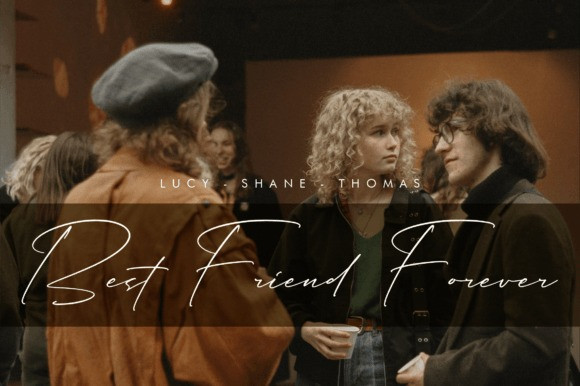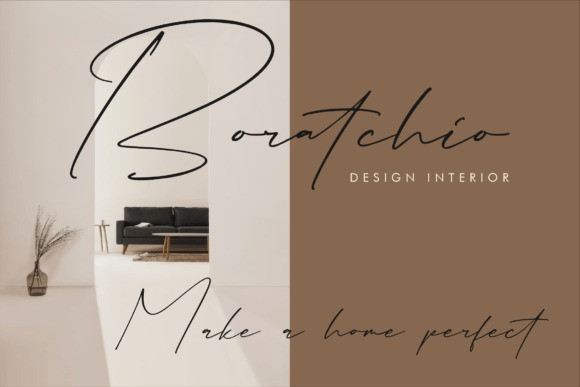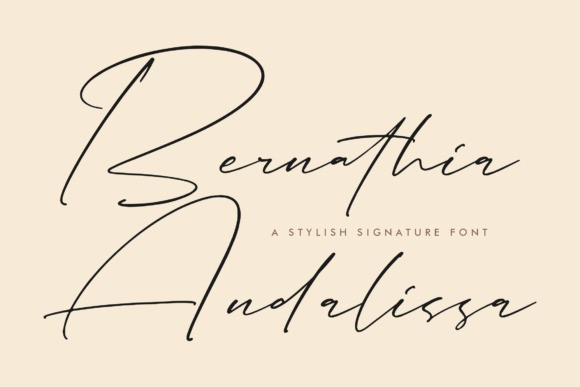
Bernathia Andalissa Font
Bernathia Andalissa Font – Stylish Signature Font, created by Storytype. A luxury script that has own unique style & modern look. This typeface is perfect for an elegant & luxury logo, book or movie title design, fashion brand, magazine, clothes, lettering, quotes, and so much more.